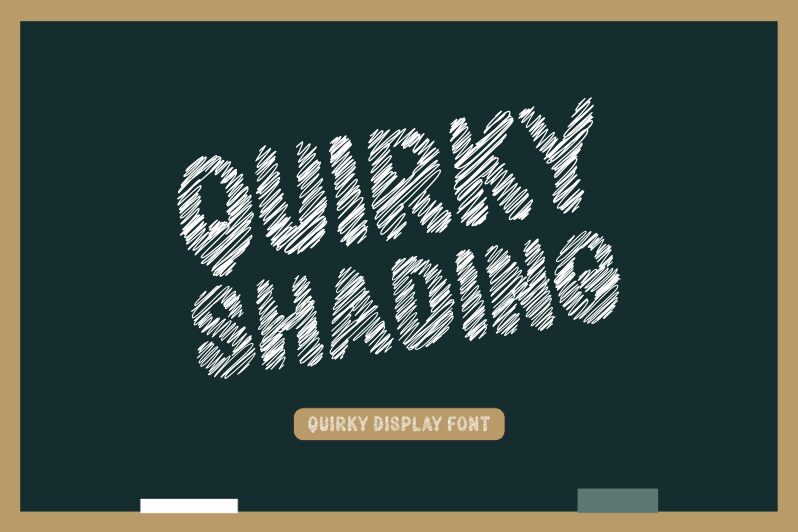
Quirky Shading
Quirky Shading font by Ainun Jinan has a textured and shaded design that instantly redirects attention toward it. The free bold script font has an energetic appearance that is suitable for eye-catching projects. The designer was inspired by retro typefaces and infused their subtle aromatic vibes to reach this level of uniqueness and originality.
Use it in designing poster headlines, promotional ad banners, books or magazine covers, mobile or desktop applications, product package labels, illustrations for children’s books, party invitations, digital graphics on websites of all types but especially e-commerce ones.